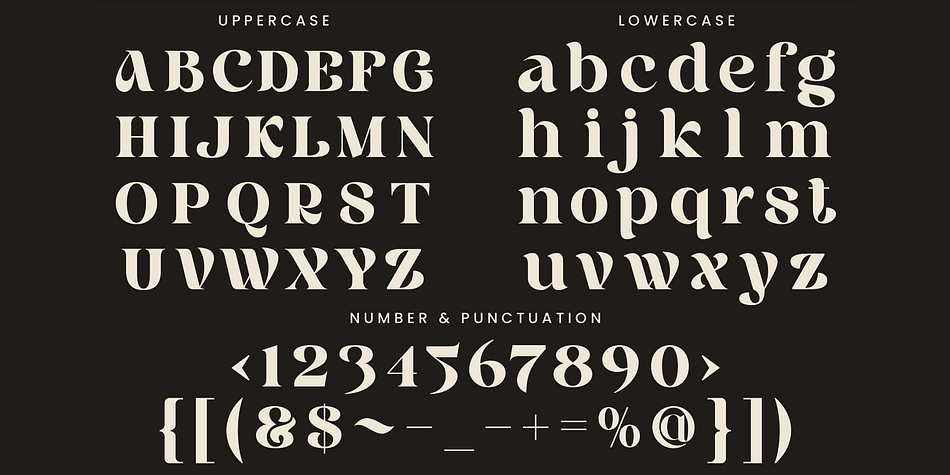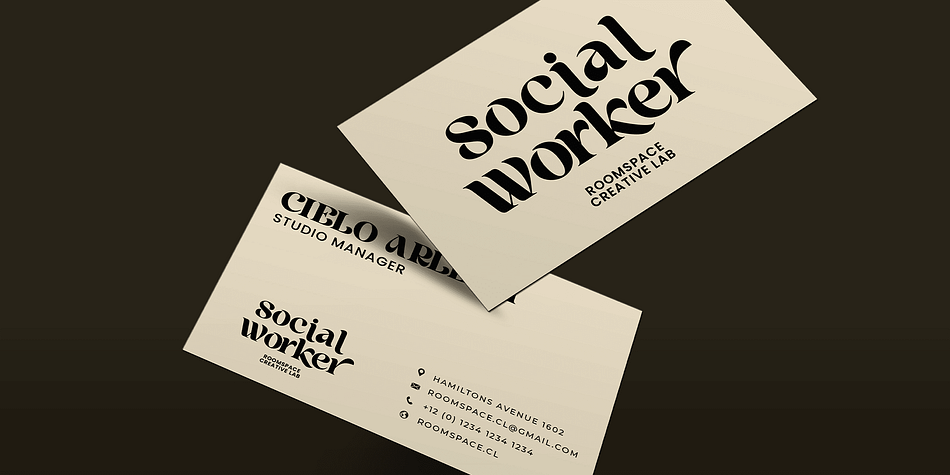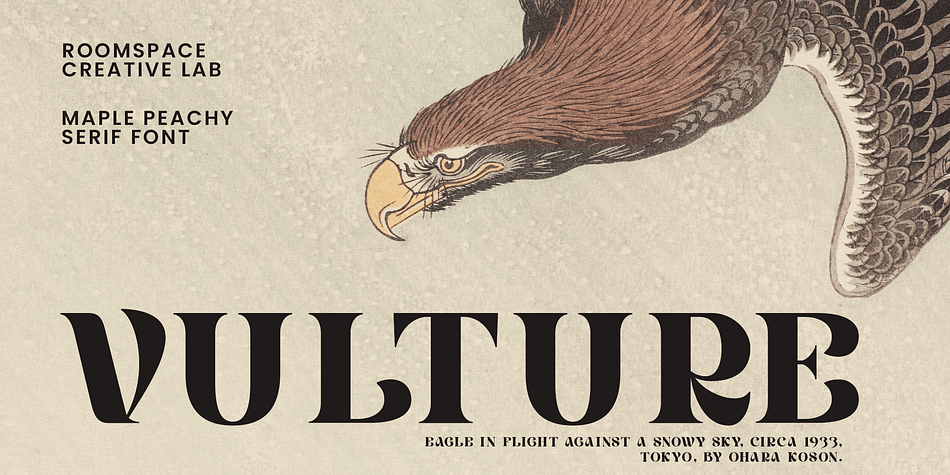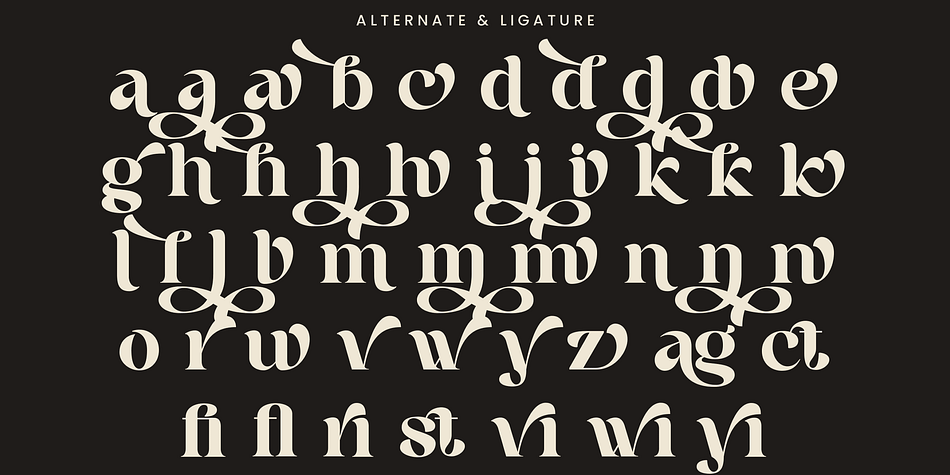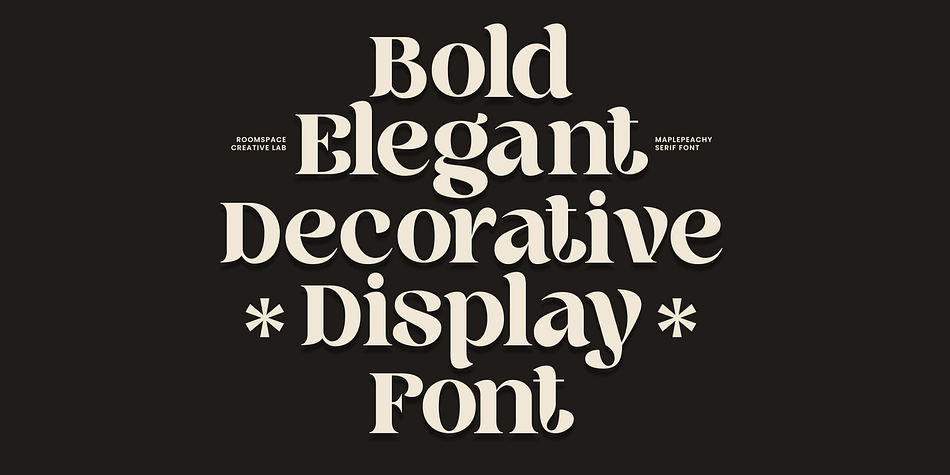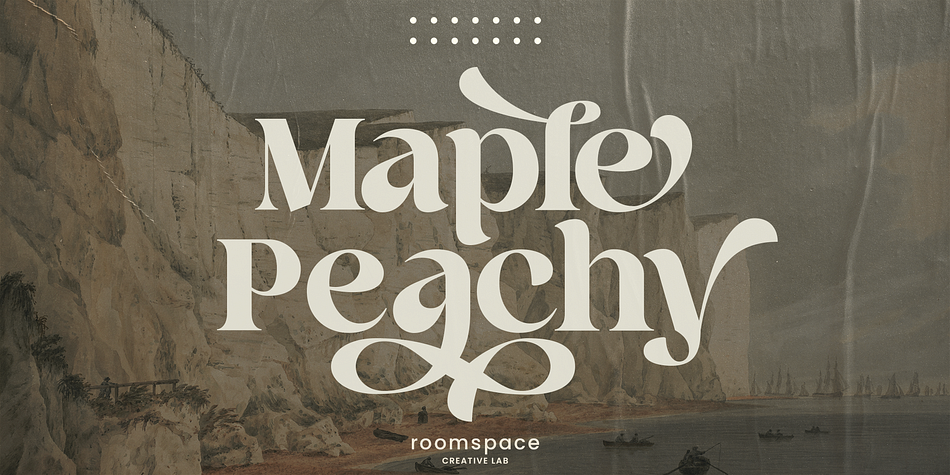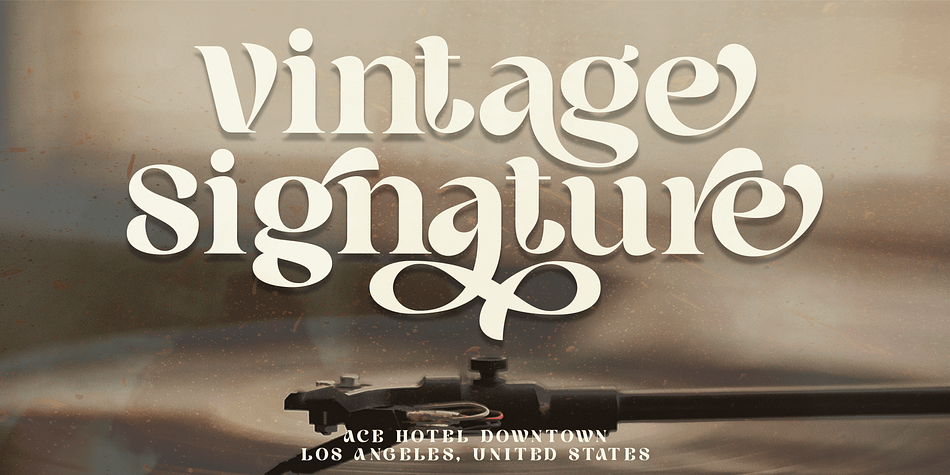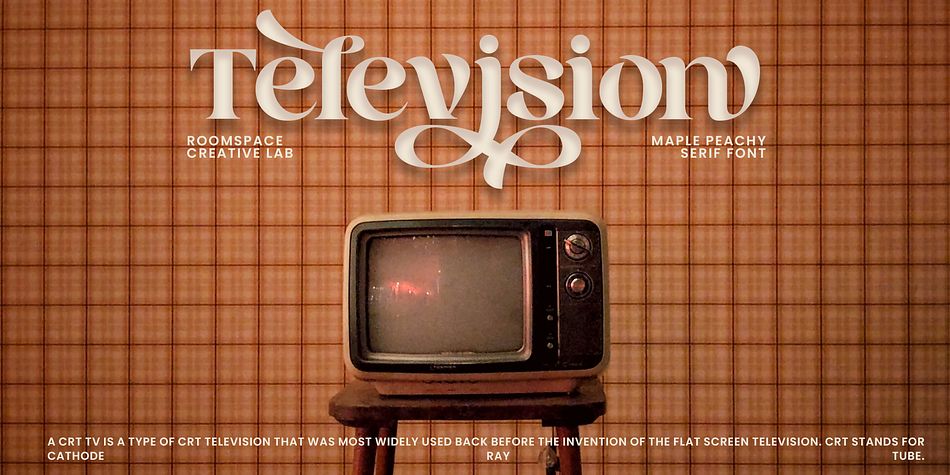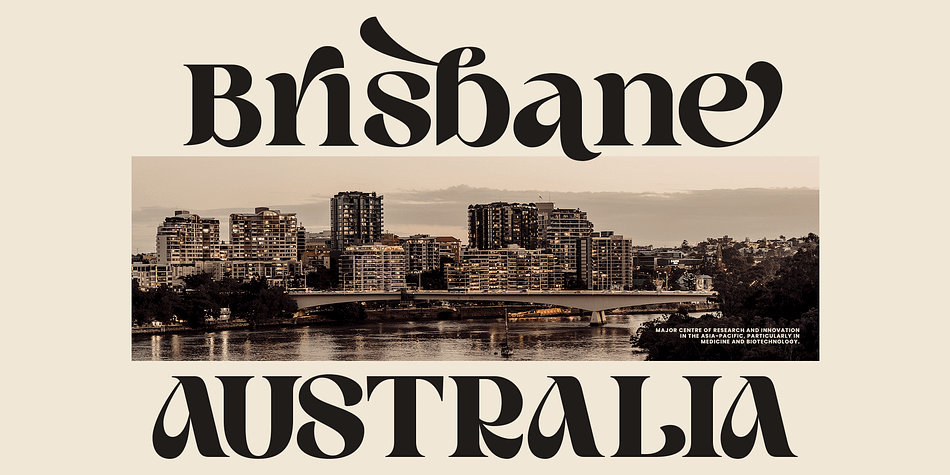
Maple Peachy
Maple Peachy is a display serif and retro font family. This typeface has two styles and was published by roomspace.
Introducing Maple Peachy, a stylish and modern retro font perfect for making a statement! Featuring elegant tail swashes, this stunning font is versatile and perfect for creating graphic designs, branding materials, and more. Whether you’re looking to create eye-catching logos, monograms, or headlines, this modern retro font will be the perfect addition to your design arsenal. With its unique vintage character, Maple Peachy offers a timeless look that won’t go unnoticed.
Make a statement and bring your creative visions to life with Maple Peachy! This modern retro font is the perfect blend of vintage elegance and modern charm. Get started today and add a timeless touch to your projects with Maple Peachy!
Regular & Italic
Special Ligatures & Alternates
Numbers & Punctuation
Styles Display Serif, Retro